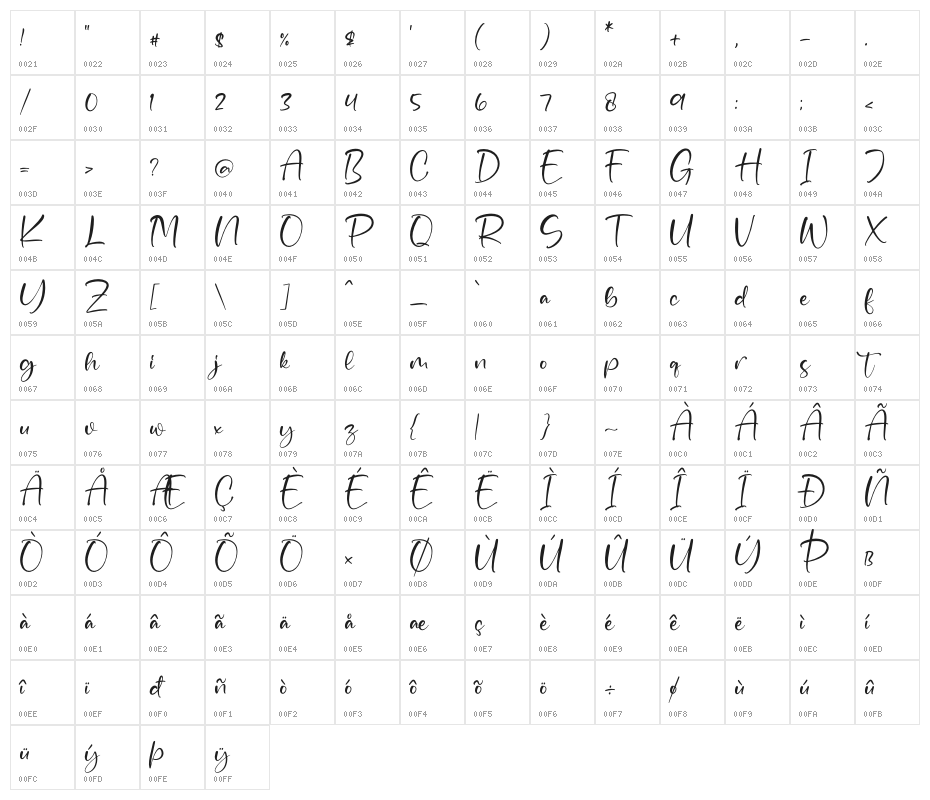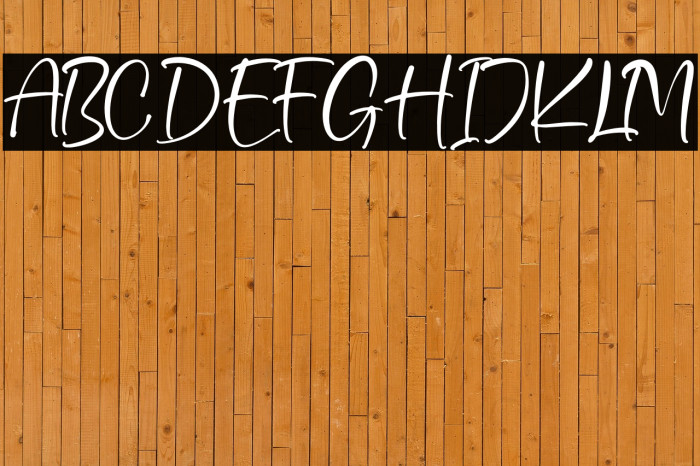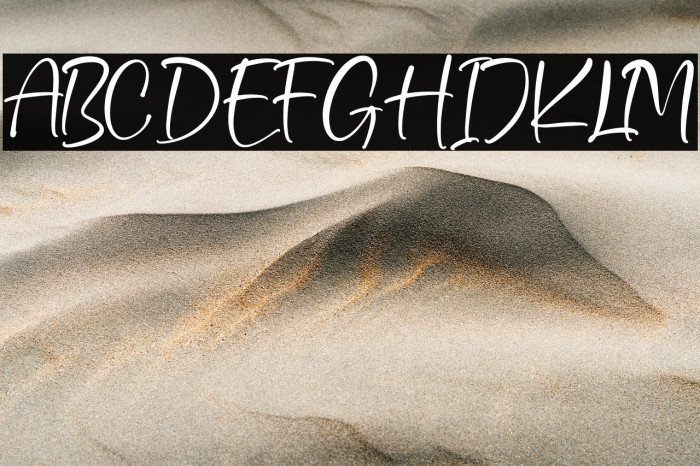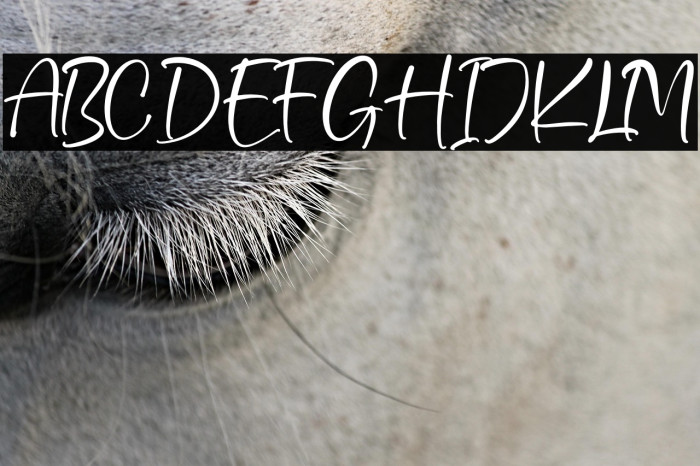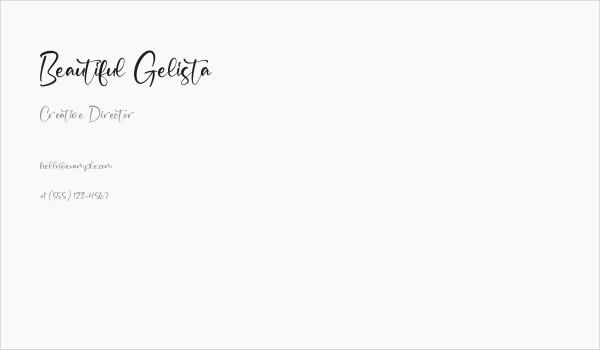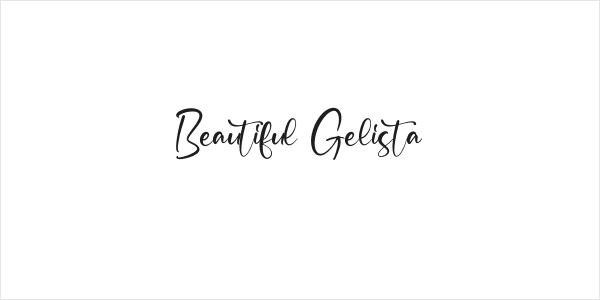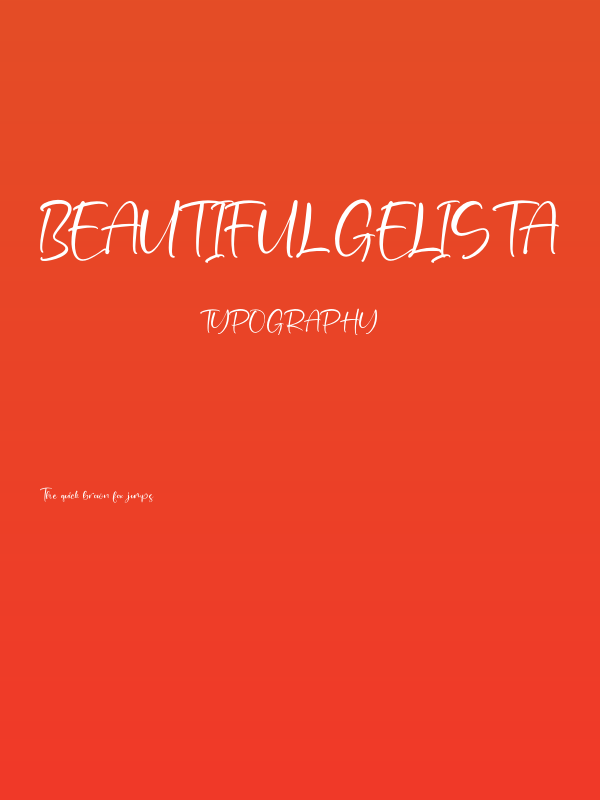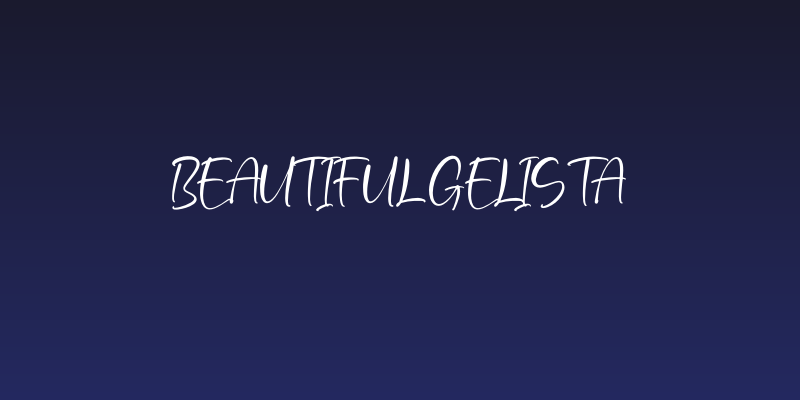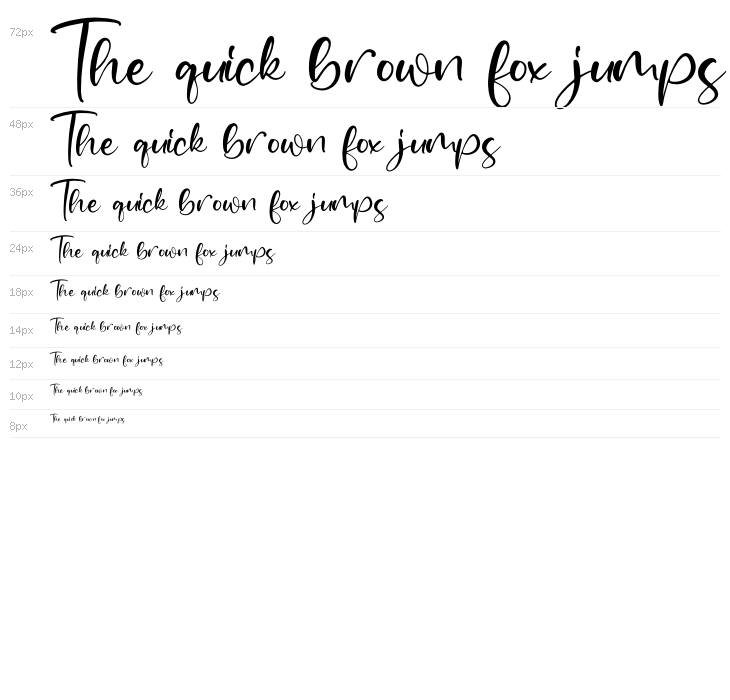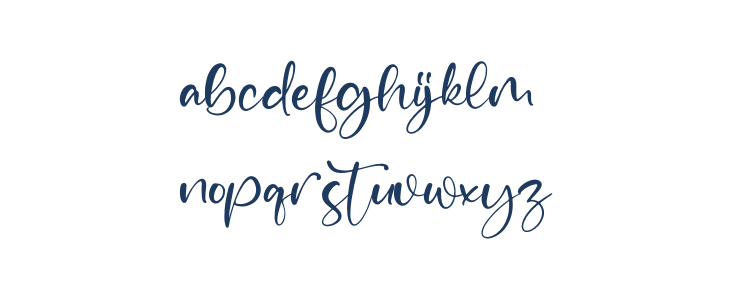
Beautiful Gelista Font
Beautiful Gelista Description
This font features a flowing, handwritten style that exudes elegance and creativity. The uppercase letters are tall and slightly narrow, with a consistent stroke width that adds a touch of sophistication. The lowercase letters are more playful, with loops and curves that give them a whimsical feel. Numbers and special characters maintain the same fluidity, ensuring a cohesive look across all text. The overall design is both modern and classic, making it versatile for various design needs. Its smooth curves and balanced proportions make it ideal for projects that require a personal touch.
| Overall Style | Modern, Classic |
| Proposed Projects | Ideal for wedding invitations, greeting cards, branding, and social media graphics. |